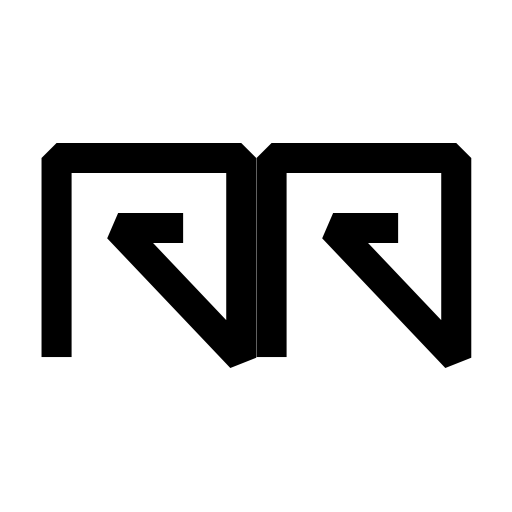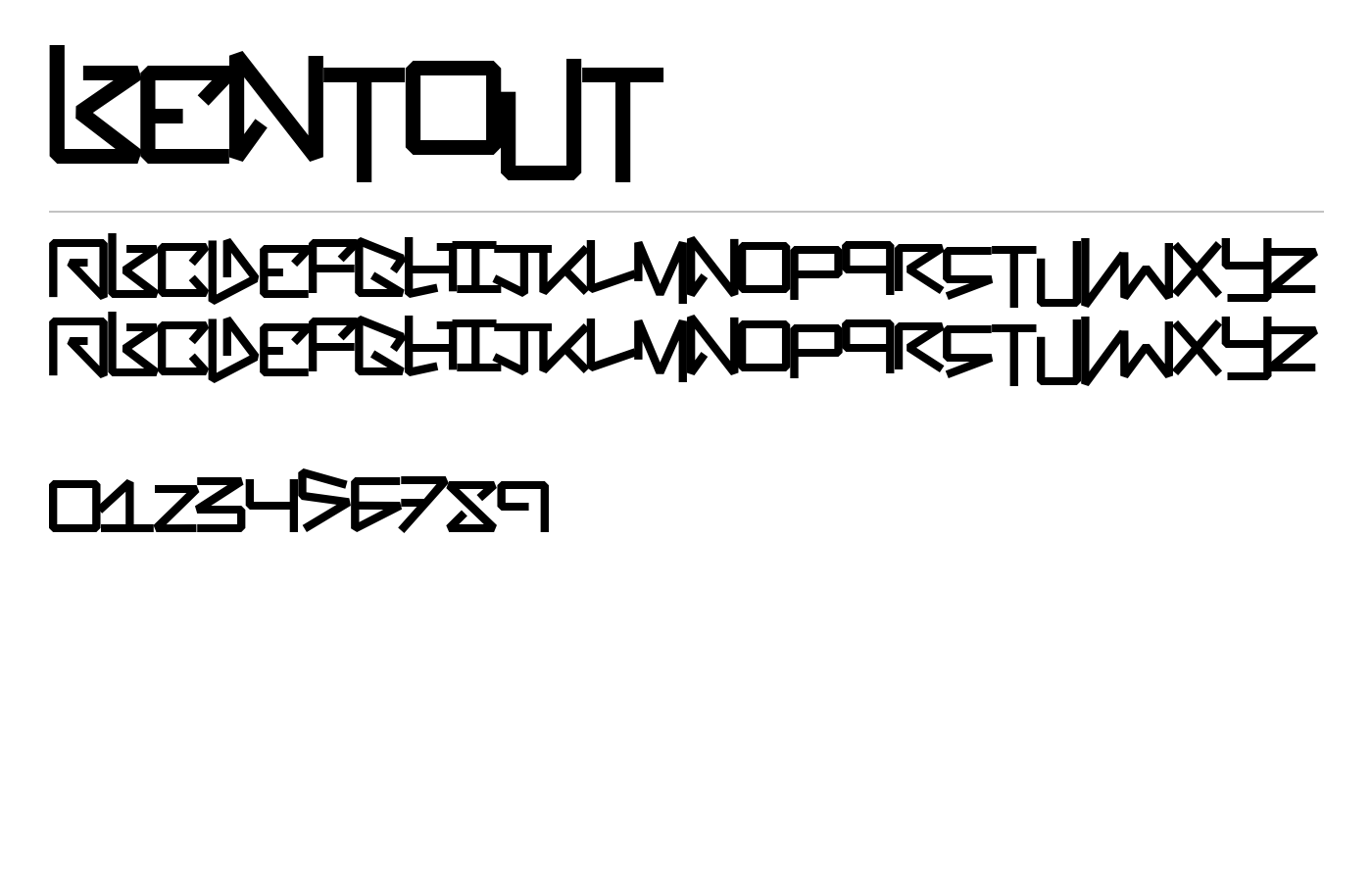
BentOut is a bold and angular sans serif font with a distinctly geometric and futuristic style. Its sharp corners and rigid strokes create a techno-industrial vibe, making it ideal for modern branding, digital headlines, and edgy graphic design projects where a strong, unconventional impact is desired. The font's unique character shapes and compact spacing give it a dynamic personality suited to cutting-edge logos and creative posters.
BentOut Font
About BentOut Font